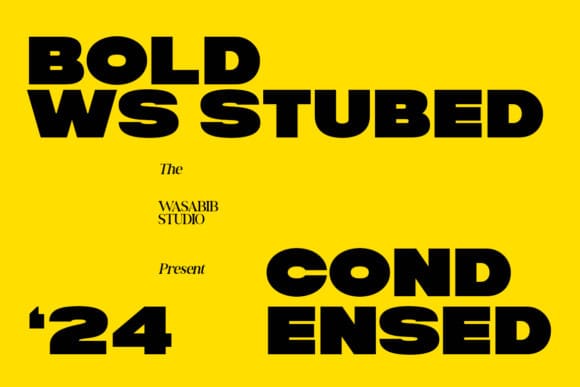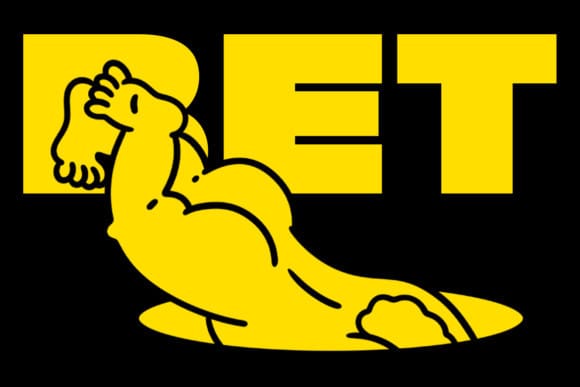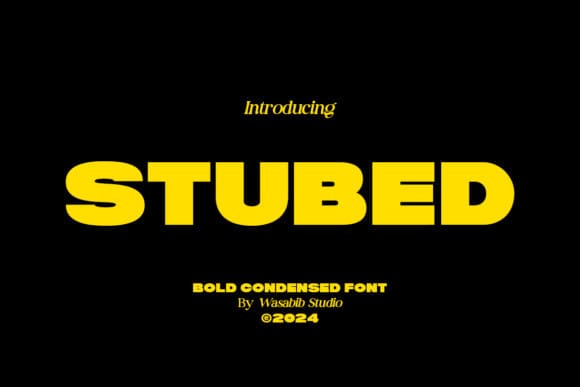
Stubed Font
Stubed Font is a strong, sharp, modern, and bold font that is ideal for branding purposes. Its powerful and impactful design makes it a great choice for creating a memorable brand identity that conveys strength, modernity, and professionalism.